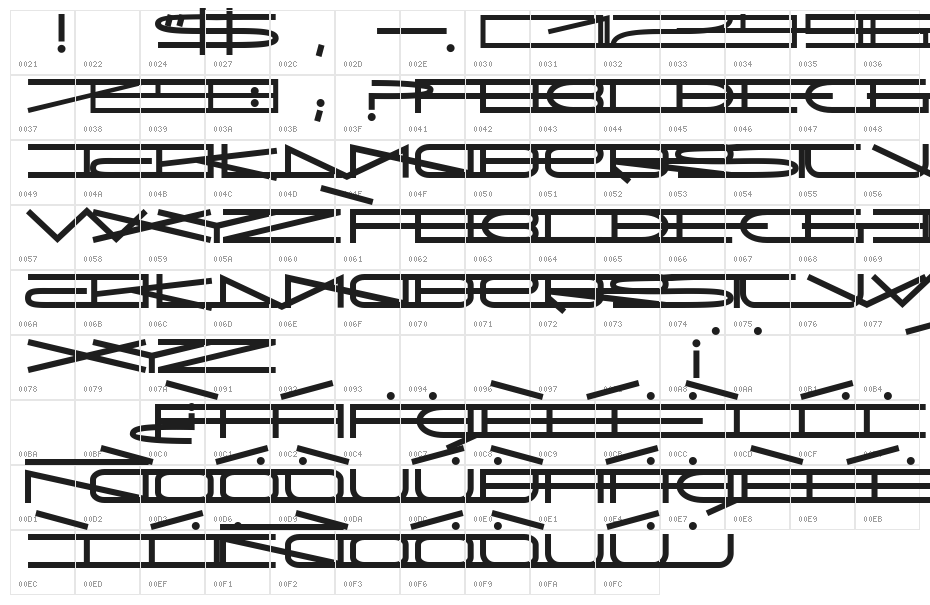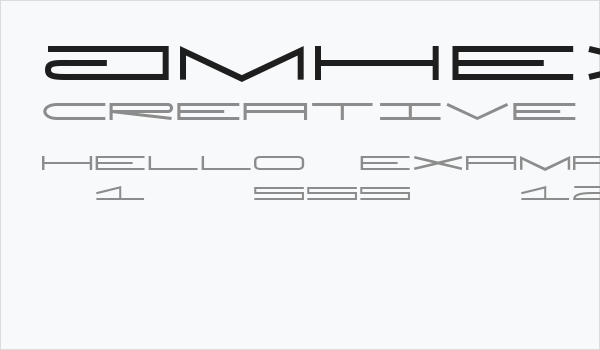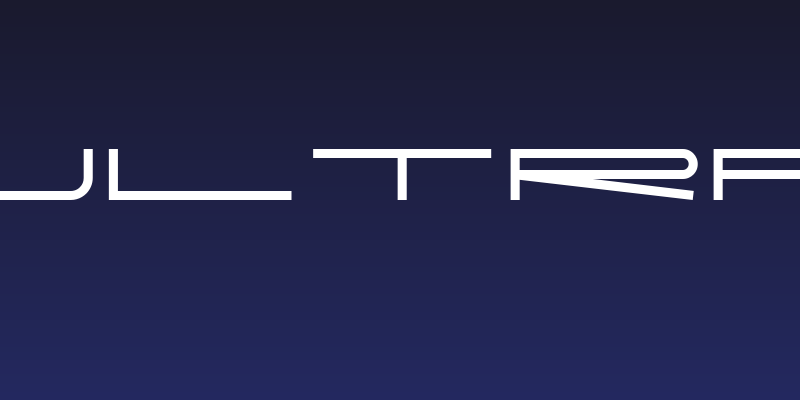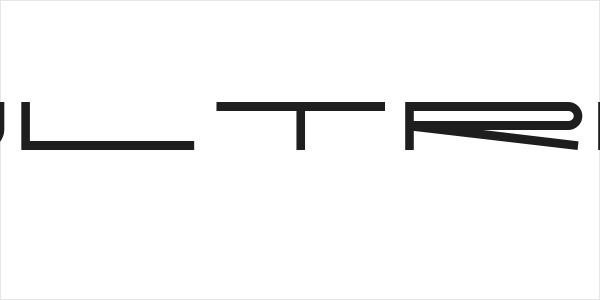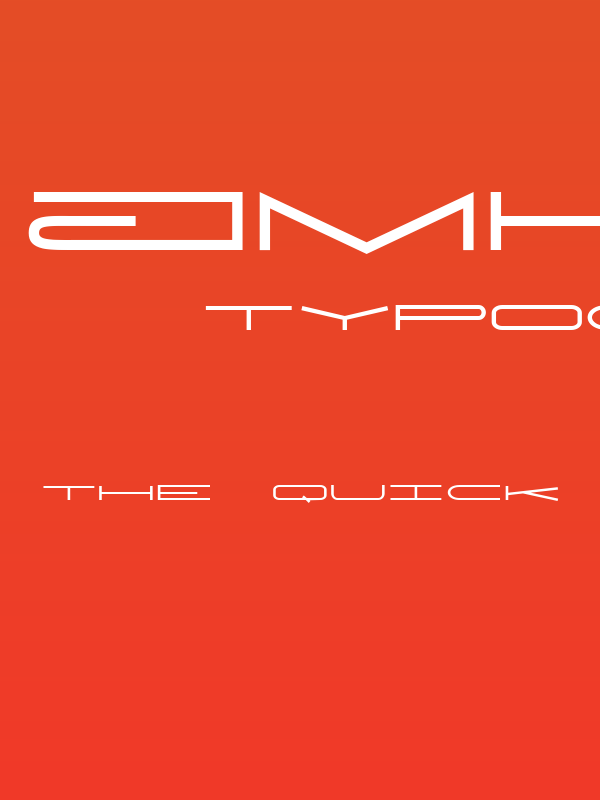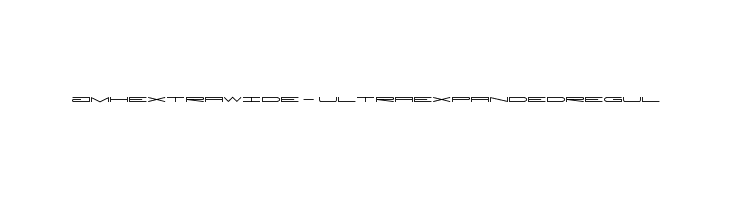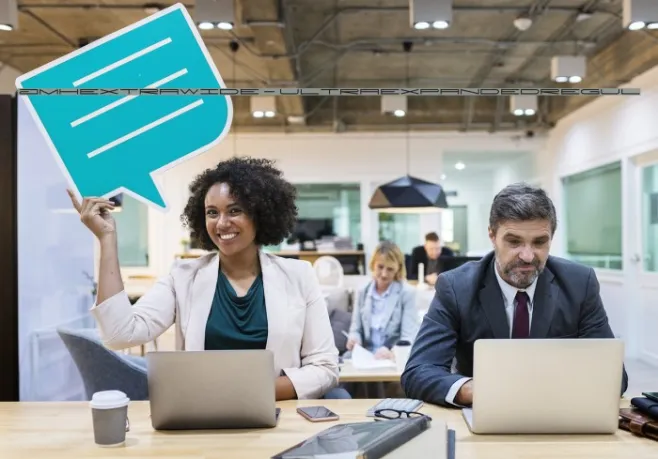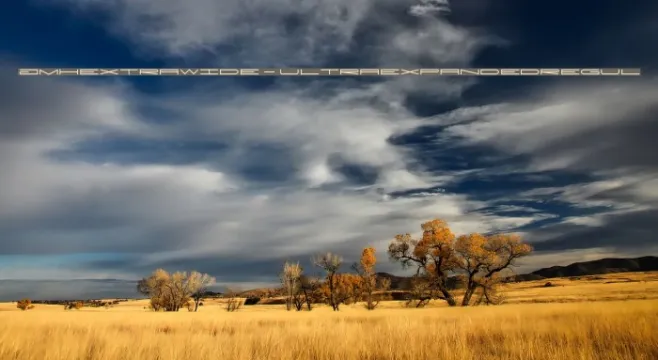
JMHExtraWide-UltraexpandedRegul Font
JMHExtraWide-UltraexpandedRegul Description
This font features an ultra-expanded style with a futuristic and geometric design. The characters are elongated and have a sleek, modern appearance, emphasizing horizontal lines. The uppercase and lowercase letters maintain a consistent width, creating a uniform look across the typeface. The numbers and special characters follow the same design principles, ensuring cohesion throughout. This font's unique style makes it stand out, ideal for projects that require a bold and distinctive visual impact.
| Proposed Projects | Ideal for sci-fi themed designs, technology branding, modern posters, and innovative product packaging. |